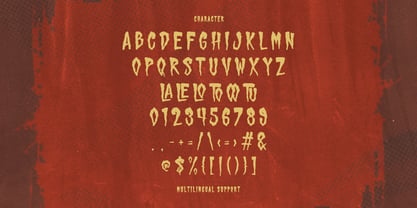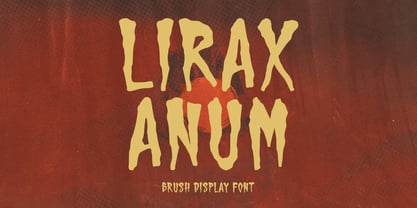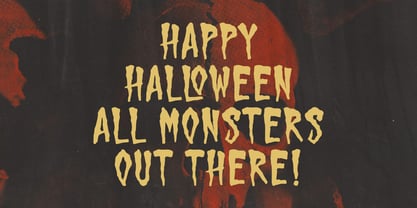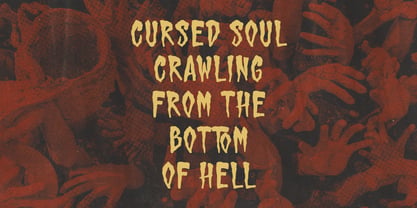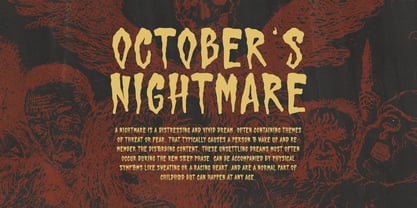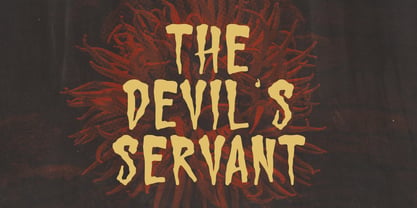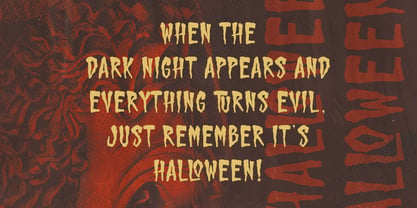
MC Lirax Anum
by Maulana Creative
The MC Lirax Anum Font Family was designed by Gilang Maulana and published by Maulana Creative. MC Lirax Anum contains 1 styles. More about this family
Unleash the shadows with Lirax Anum, a bold and striking brush display font crafted to bring your darkest concepts to life. This font showcases rugged, hand-painted strokes and jagged edges, embodying the raw, unsettling energy of classic horror, gritty pulp fiction, and underground metal scenes. With its menacing texture and commanding presence, Lirax Anum is the ideal typeface for projects that demand attention and evoke a sinister atmosphere. Perfect for Halloween promotions, posters, and party invitations, as well as horror movie titles, covers, and promotional materials. It's also an excellent choice for heavy metal and punk rock album art and band logos, grungy apparel design, and merchandise. This all-caps typeface includes comprehensive multilingual support, numbers, and punctuation, making it a versatile tool for international designers aiming to infuse their work with a touch of terror. Command fear and attention with Lirax Anum, the ultimate font for dark and edgy display needs.
Designers: Gilang Maulana
Foundry: Maulana Creative